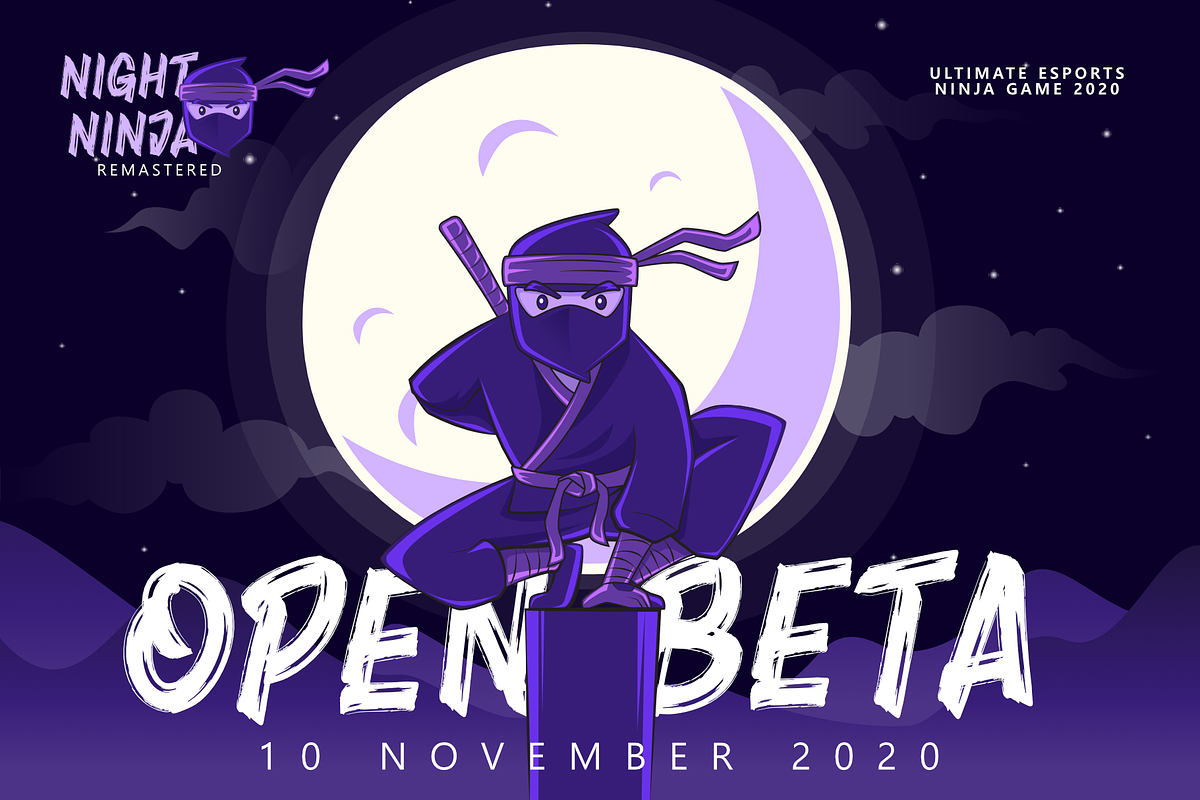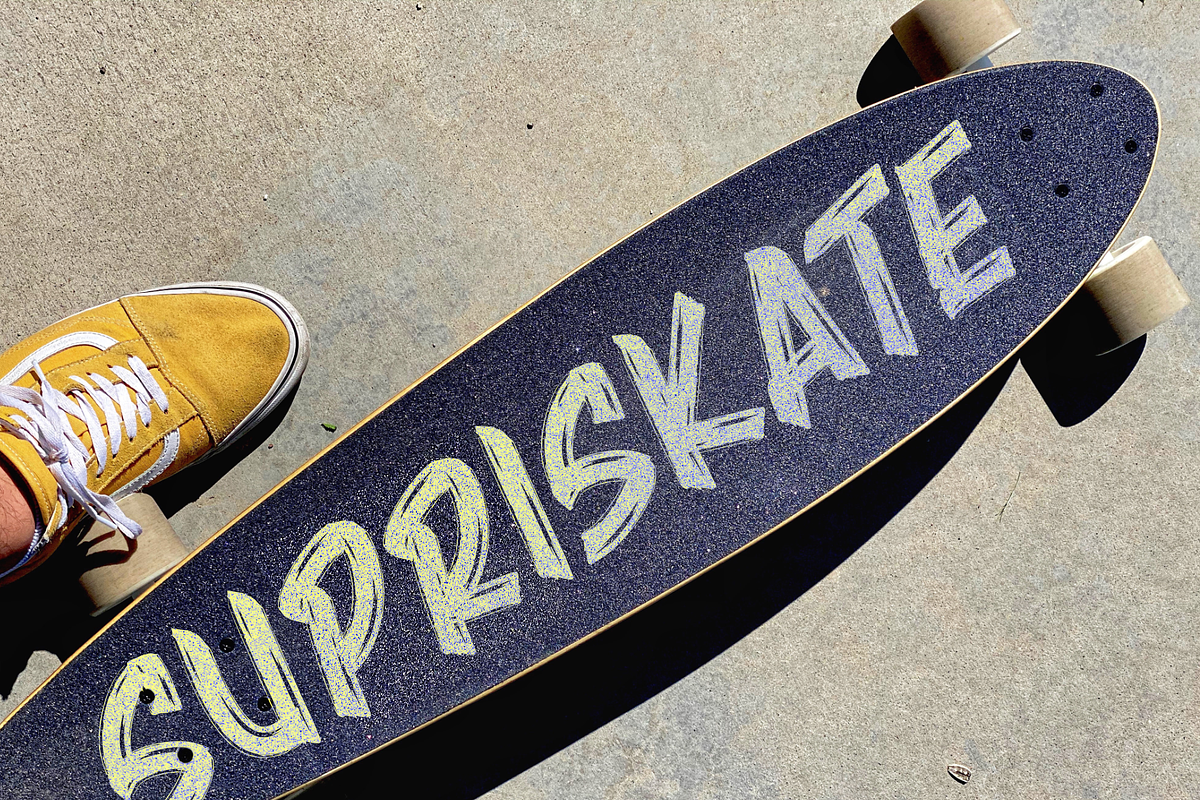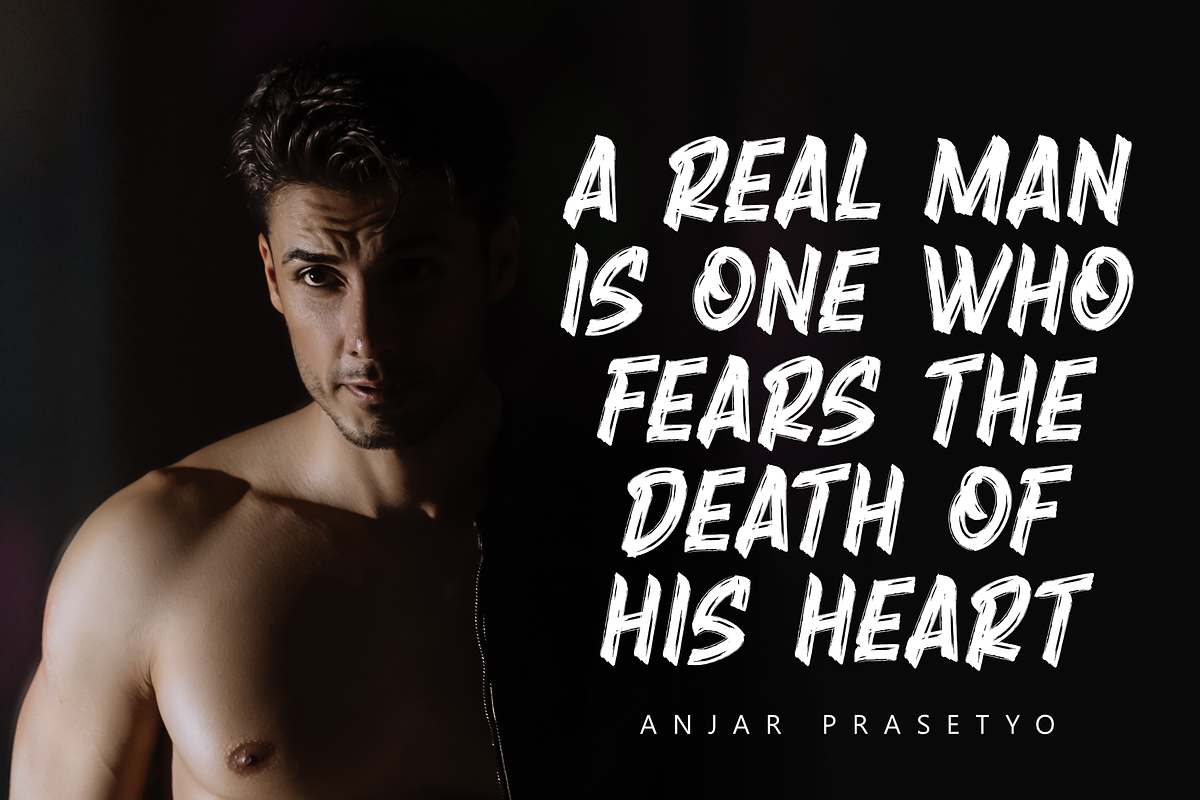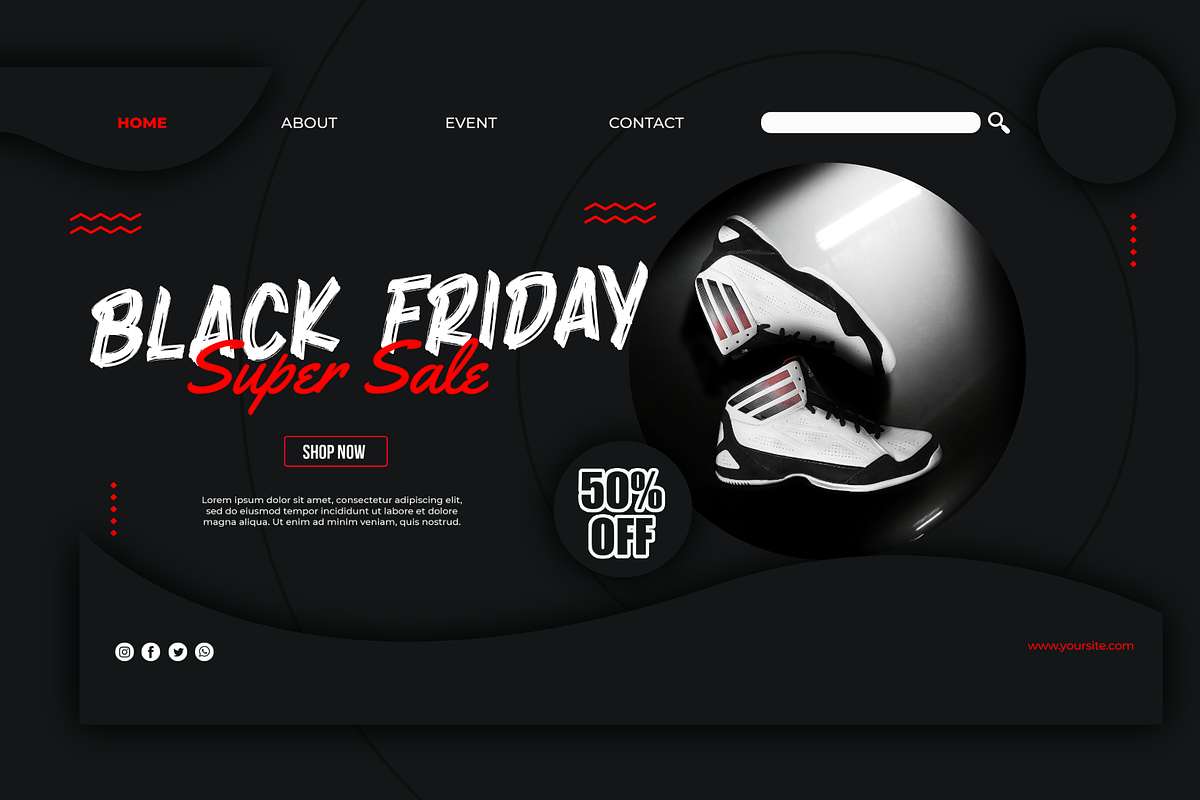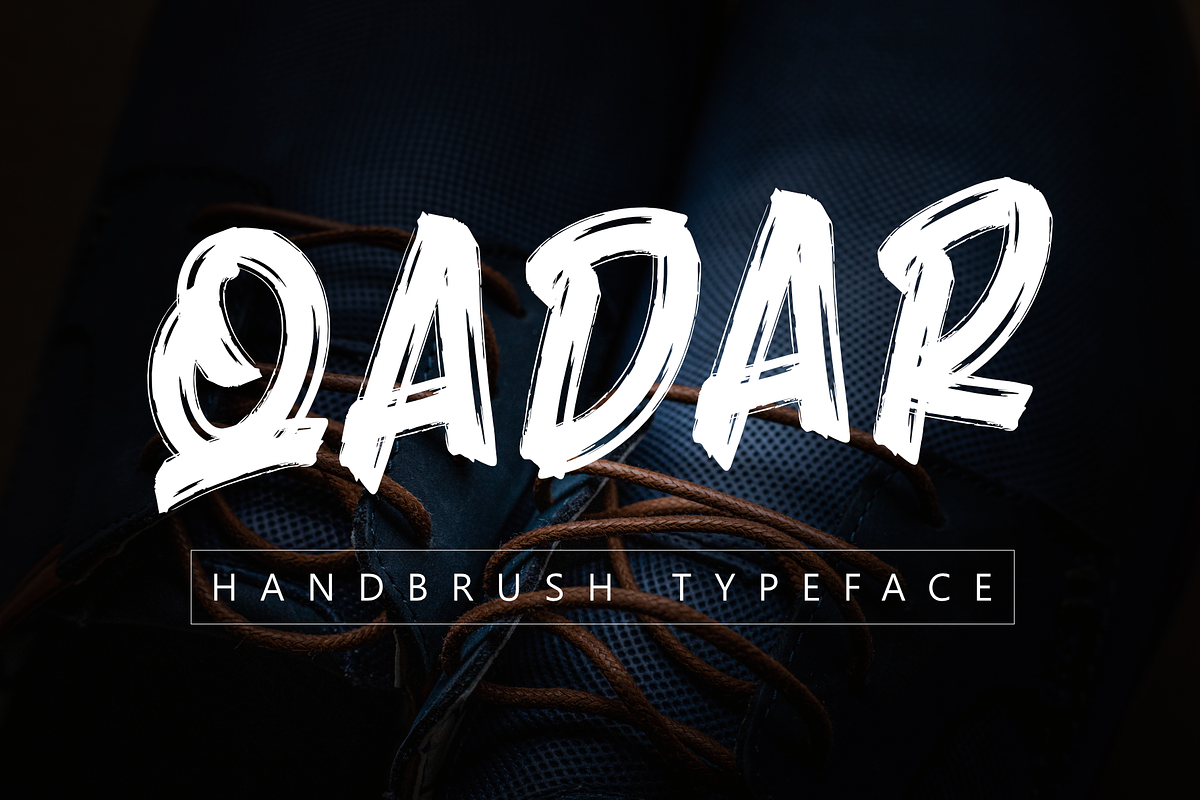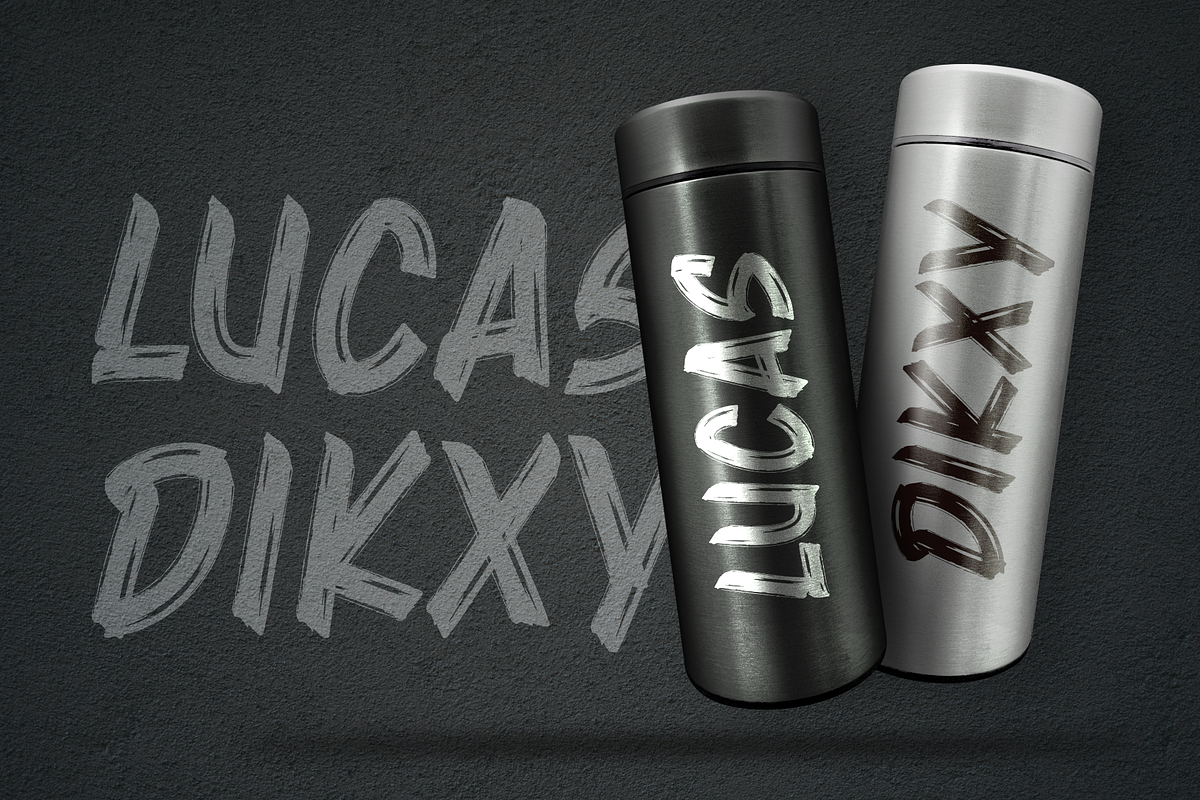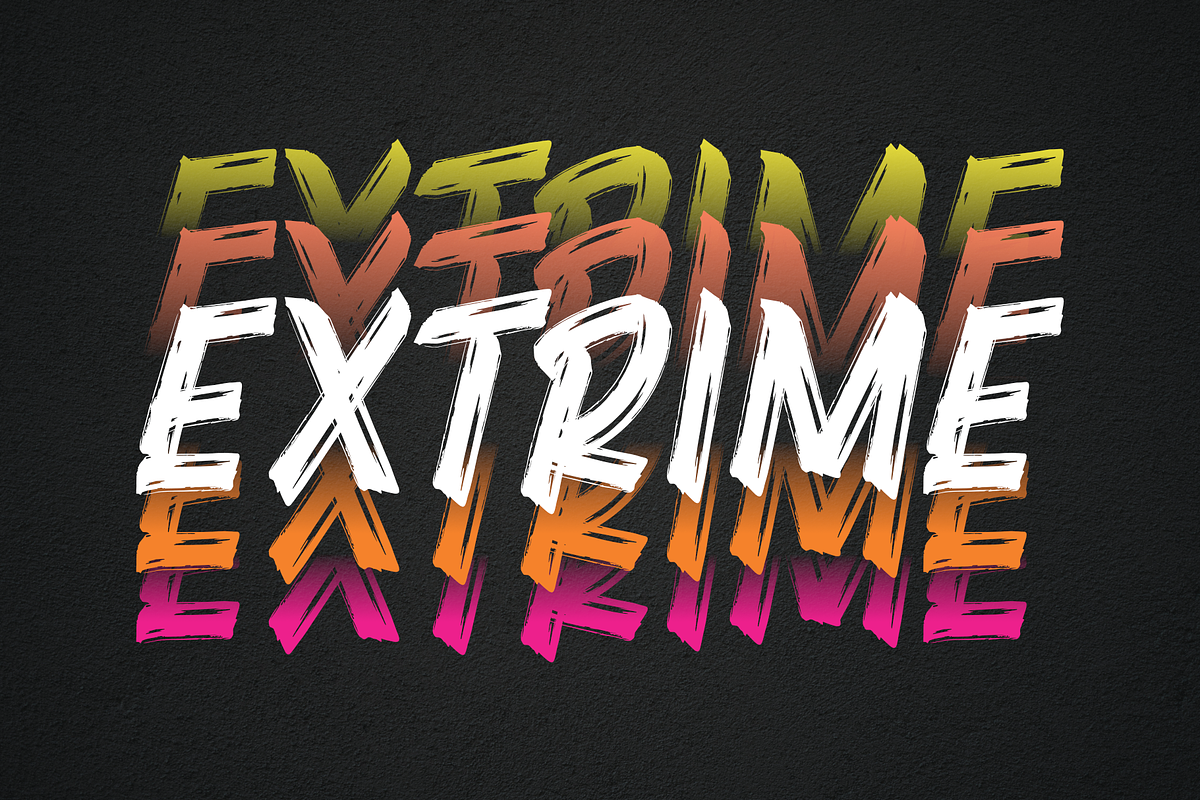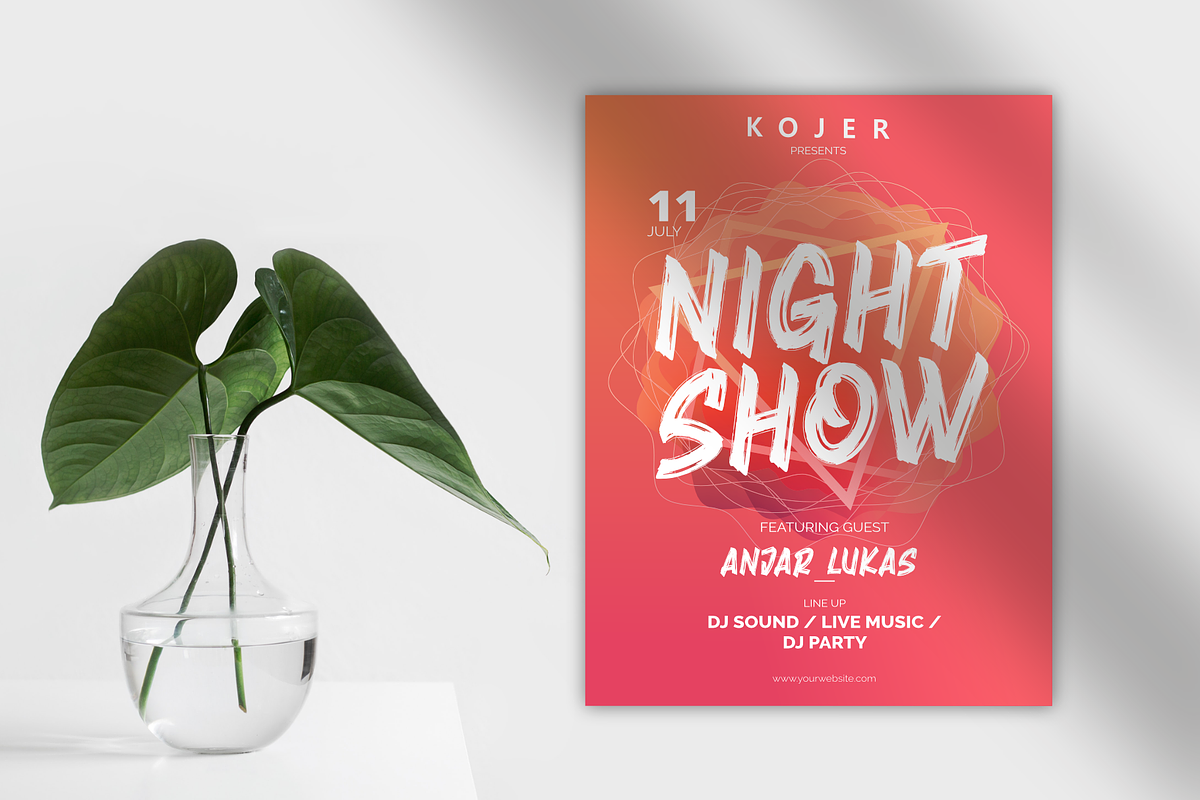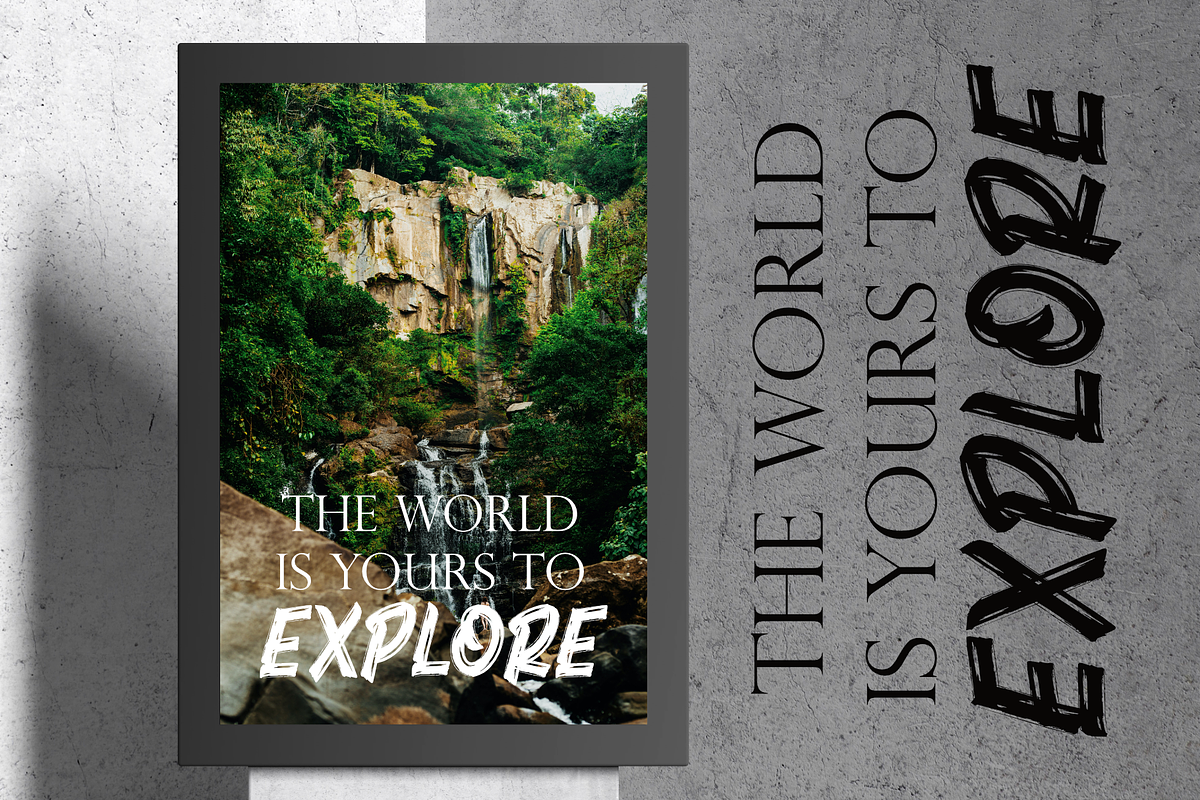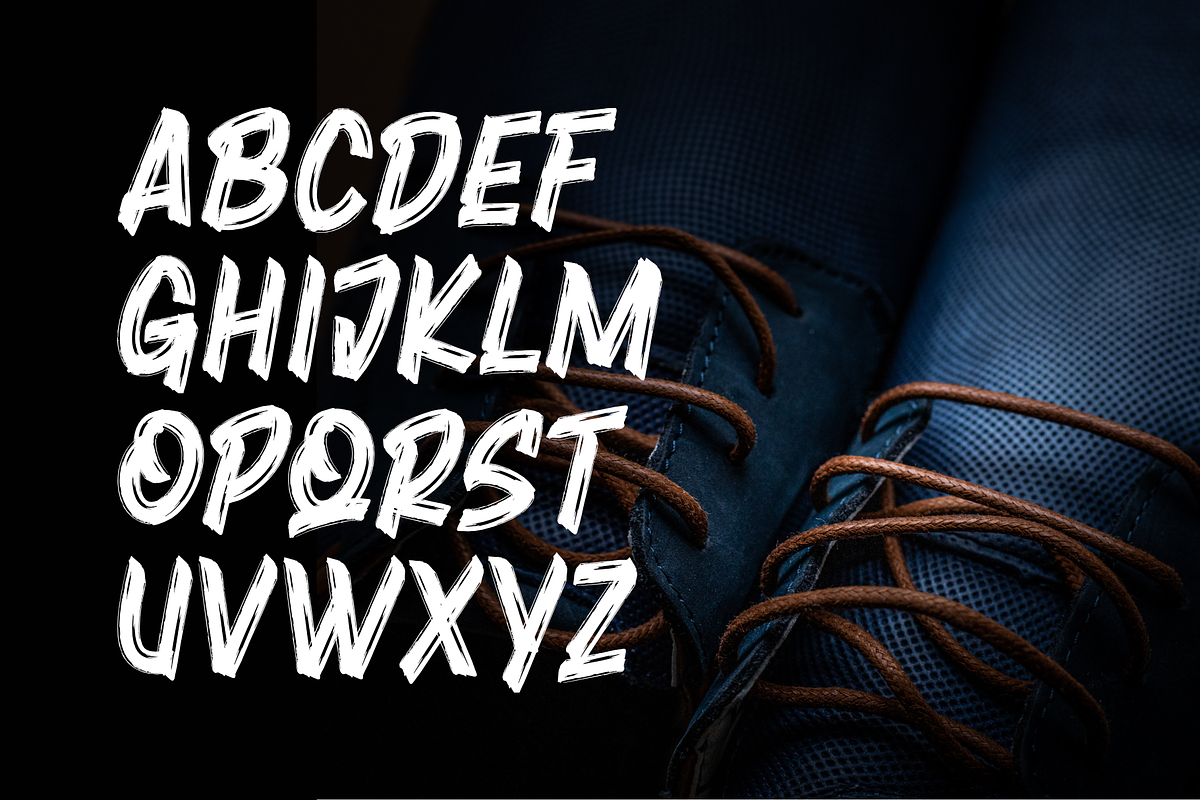
Qadar
Qadar is an elegant looking brush font, created using the perfect brush app for any design project. very beautiful if used as a font for your branding media so that your design is very impressed with character.
This font is perfect for collaboration with tumbler design, skateboard, web design, poster design, t-shirt design, and other designs.